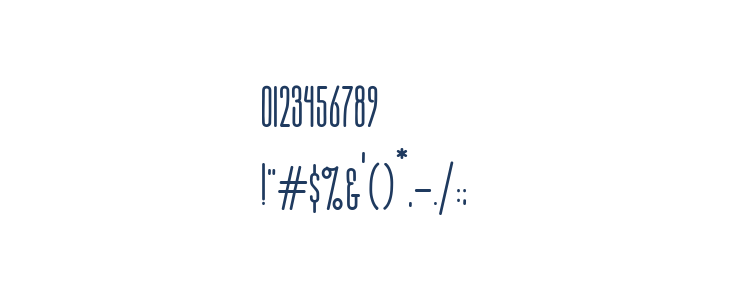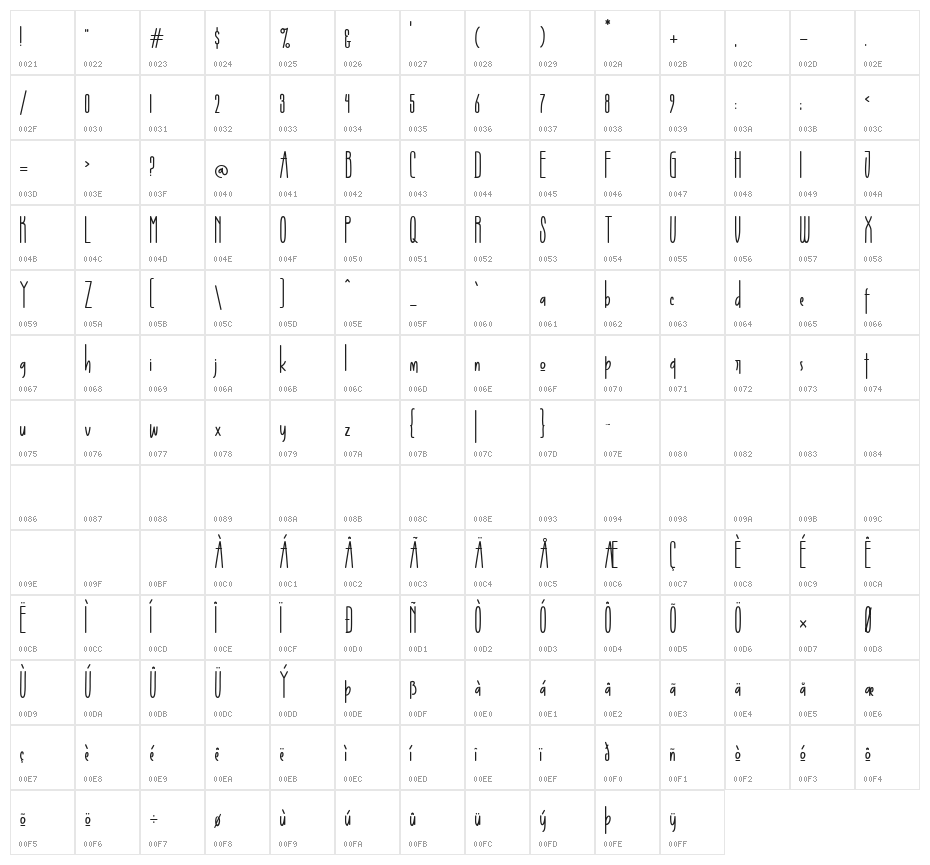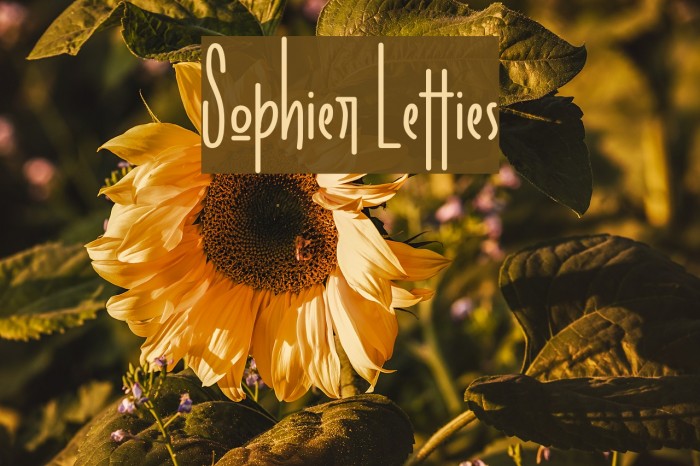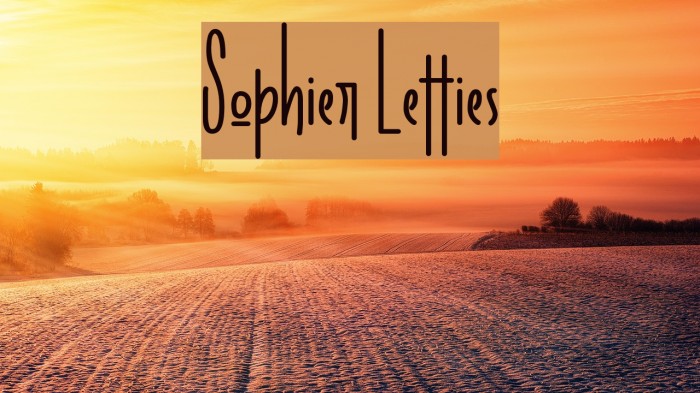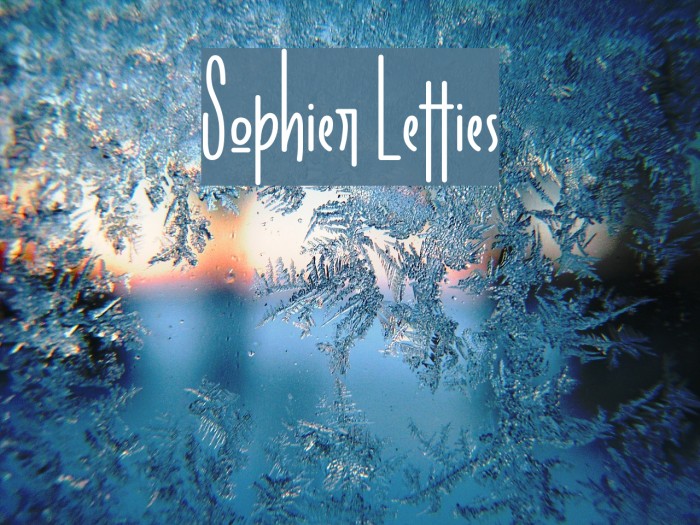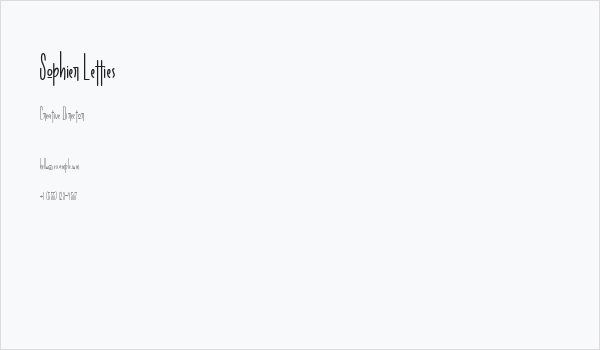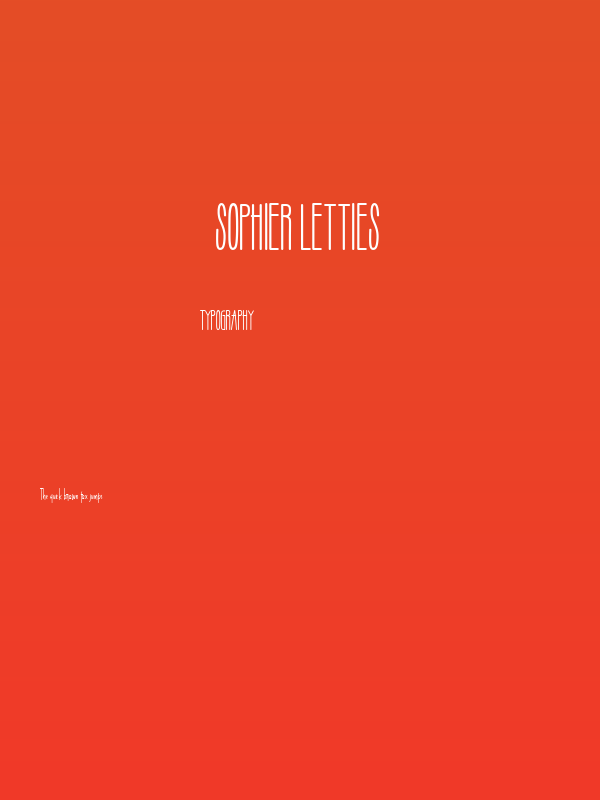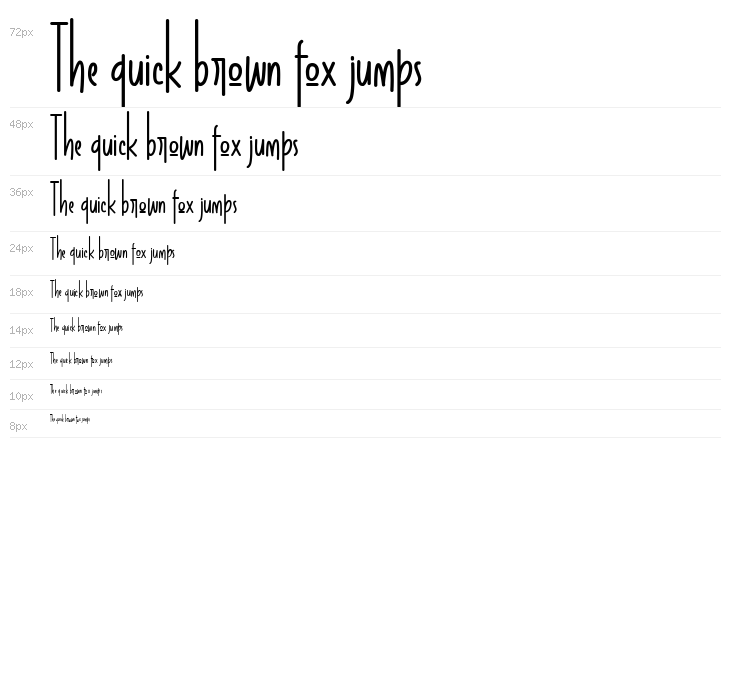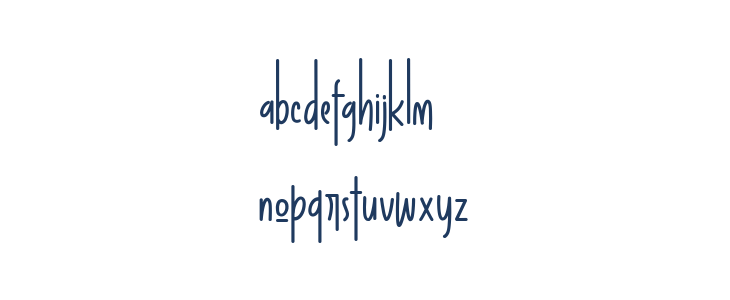
Sophier Letties Font
Sophier Letties Description
This font features a tall and narrow design with a playful, handwritten style. The uppercase letters are elongated and maintain a consistent height, while the lowercase letters have a more casual and varied appearance. The numbers are similarly tall and slender, complementing the overall aesthetic. Special characters are designed to match the whimsical nature of the font, with unique curves and angles. The font's thin strokes and minimal contrast give it a light and airy feel, making it suitable for creative and informal applications.
| Use Case | Logos, Posters, Greeting Cards |
| Proposed Projects | Ideal for greeting cards, children's books, playful branding, and creative posters. |